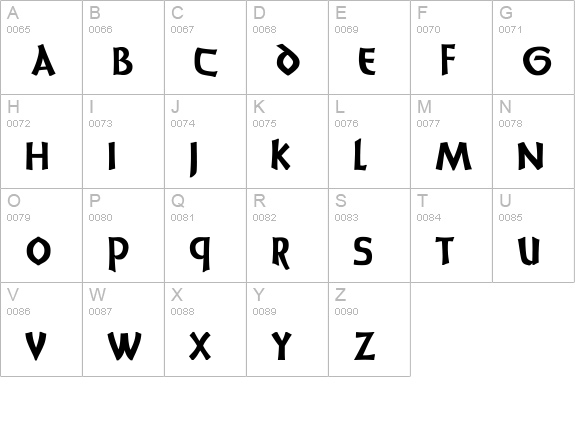
UnciaDis Bold is a strong, high-contrast variant in the UnciaDis typeface family \xE2\x80\x94 well suited to headlines, attention-grabbing titles, and strong calls-to-action.
UnciaDis Bold is a captivating font that adds a touch of elegance and sophistication to any design project. With its bold and striking appearance, UnciaDis Bold commands attention and makes a powerful statement. The strong, thick strokes of this font convey a sense of confidence and authority, making it perfect for headlines, titles, and branding materials. One of the best things about UnciaDis Bold is that it is freely available to download at FontsMarket.com. This means that designers and creatives can easily access this stunning font without any cost, enabling them to enhance their projects with a high-quality typography solution. Whether you are working on a professional design project or simply looking to elevate your personal creations, UnciaDis Bold is a versatile font that will undoubtedly make an impact. Featuring a unique blend of sharp angles and smooth curves, UnciaDis Bold strikes the perfect balance between modernity and timelessness. It is a font that effortlessly exudes confidence and sophistication, making it an excellent choice for a wide range of applications. From stylish logos to eye-catching advertisements, UnciaDis Bold will make your designs stand out from the crowd. The versatility of UnciaDis Bold extends beyond its aesthetic appeal. This font is also highly legible, ensuring that your message is effectively communicated to your audience. Its bold and prominent nature ensures that your text is easily readable, even from a distance. Whether it's on a website, a billboard, or a printed advertisement, UnciaDis Bold will make sure that your message is not only seen but also remembered. UnciaDis Bold is a font that combines beauty, functionality, and accessibility. Its freely available download at FontsMarket.com makes it an invaluable resource for designers and creatives alike. So why wait? Enhance your designs with the captivating power of UnciaDis Bold and make a lasting impression.